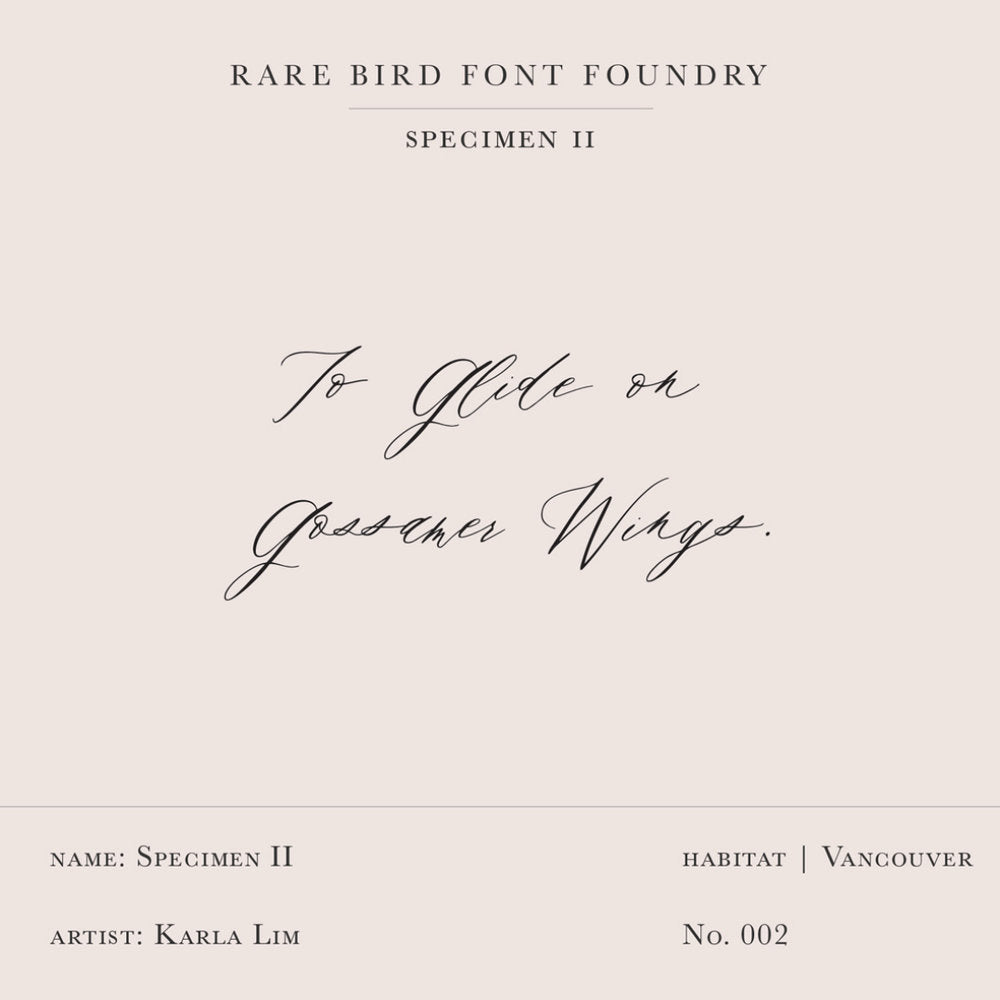
Rare Bird Specimen II
We partnered with Rare Bird to develop this beautiful full-featured font that reflects our calligraphy style. It floats across the page on gossamer wings. Specimen II pairs well with classic typefaces like Baskerville, Garamond and Bodoni.
DEFINING CHARACTERISTICS
Opentype programming, formal title & preposition wordart, 7 alternate ‘and’ options, Roman numerals, in and out-stroked letterforms at beginning and end of words, multiple alternate lowercase t cross-strokes, realistic double-letter ligatures, seamlessly connecting calligraphic letters, alternate capital letters, old style numerals, basic Latin encoding.
Rare Bird Specimen III
We partnered with Rare Bird to develop this beautiful full-featured font that reflects our calligraphy style. This all lowercase font feels both modern and feminine. While uppercase letters are still lowercase in shape, they are larger and read as caps.
DEFINING CHARACTERISTICS
Opentype programming, formal title and preposition word art, 7 alternate lowercase t cross-strokes, Roman numerals, old-style numerals, seamlessly semi-connecting calligraphic letters, realistic double-letter ligatures, in and out-stroked letters at the beginning and end of words where appropriate, basic Latin encoding.